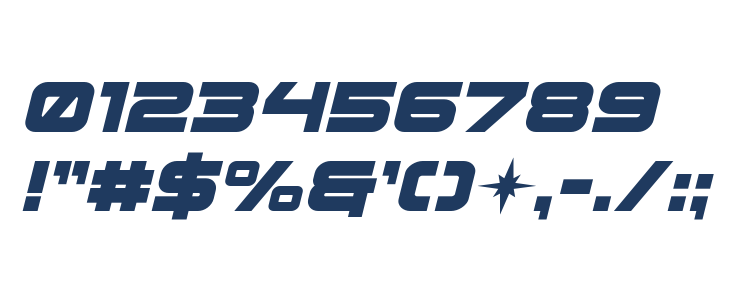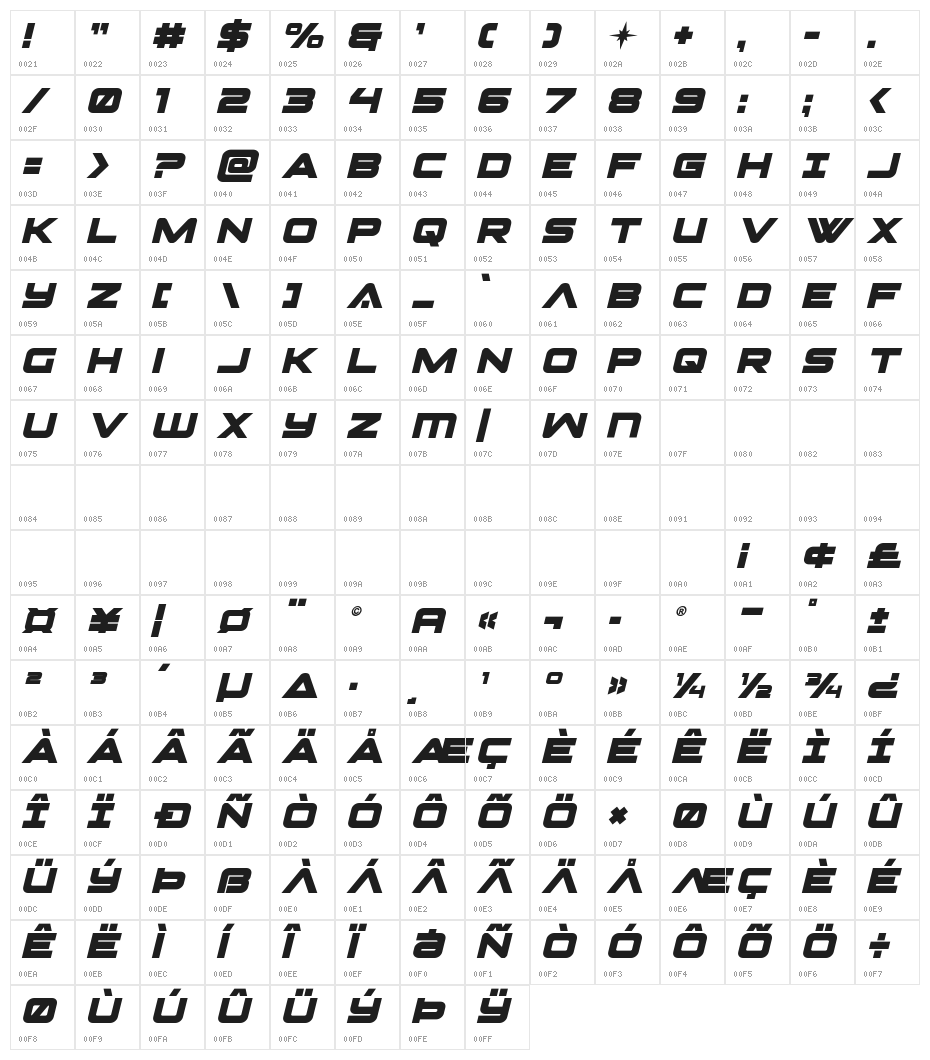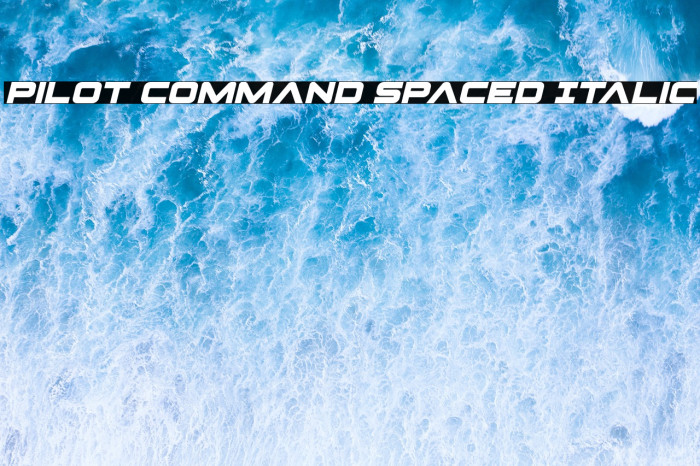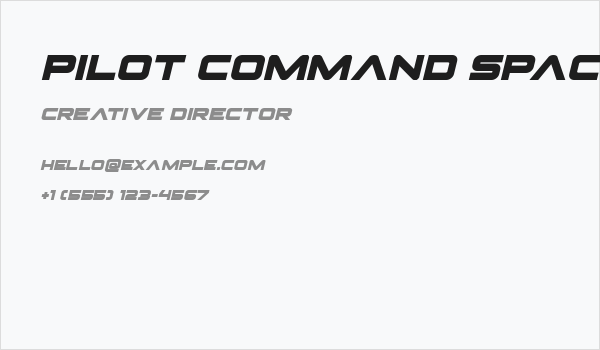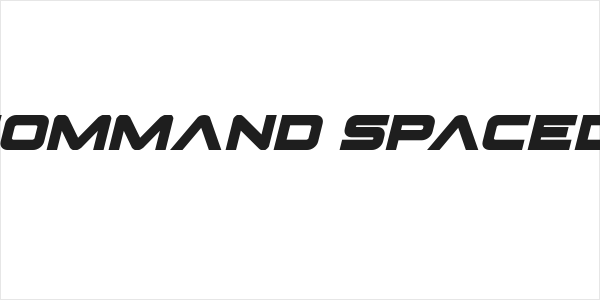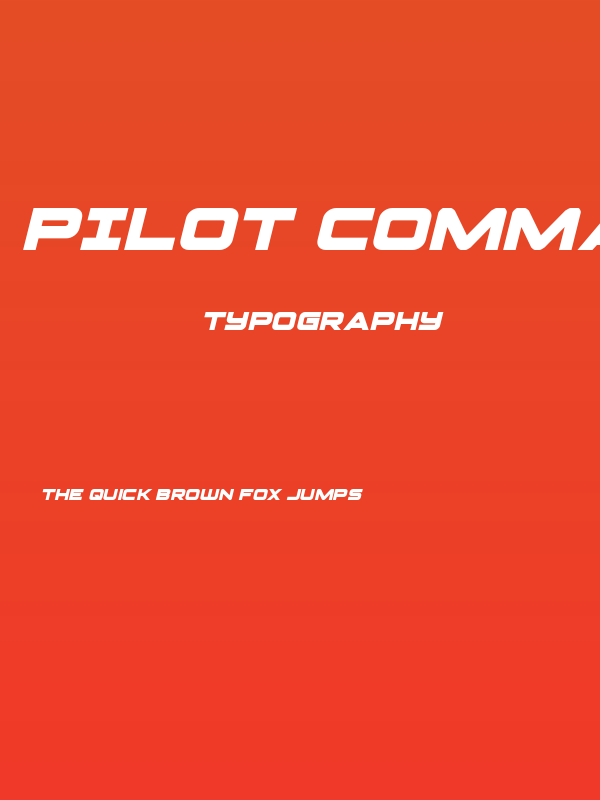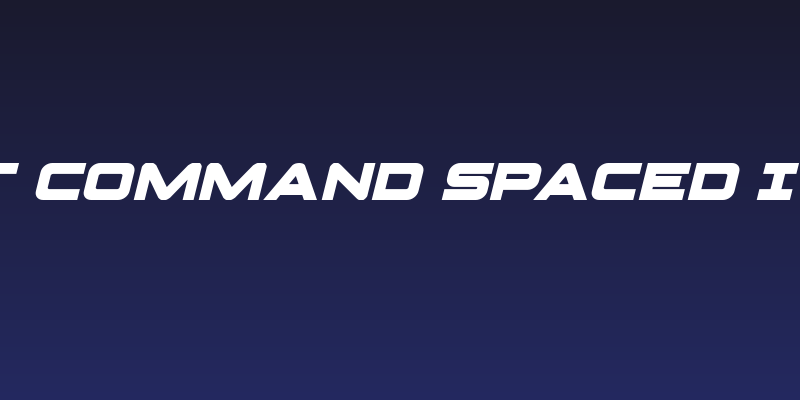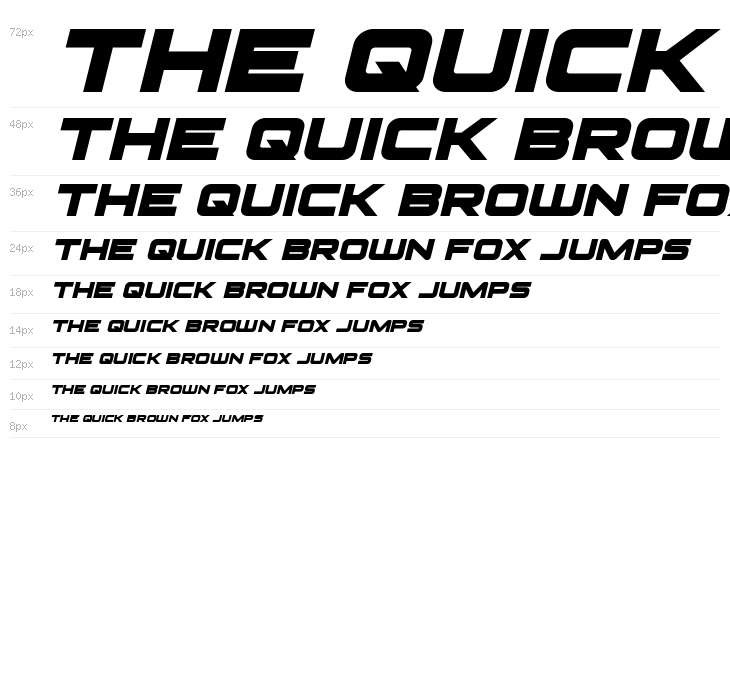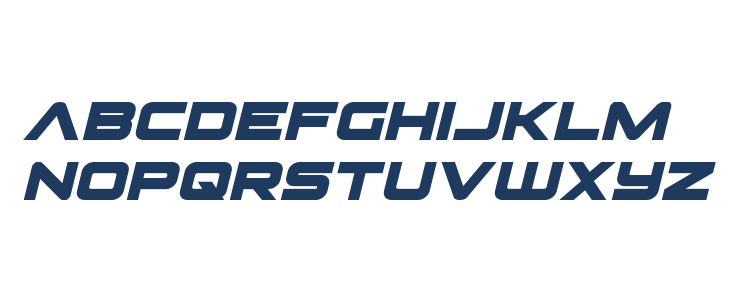
Pilot Command Spaced Italic Font
Pilot Command Spaced Italic Description
This font features a bold and dynamic style with a futuristic and aerodynamic appearance. The italicized letters are sharply angled, giving a sense of motion and speed. The characters are uniformly spaced, maintaining a clean and organized look. The uppercase and lowercase letters share a consistent design, enhancing readability while preserving the font's unique flair. The numbers and special characters are crafted with the same attention to detail, ensuring versatility across various applications. The overall design is sleek and modern, making it suitable for projects that require a contemporary and energetic aesthetic.
| Use Case | Logos, Headlines, Branding |
| Proposed Projects | Ideal for branding, sports team logos, automotive designs, and tech-related projects. |